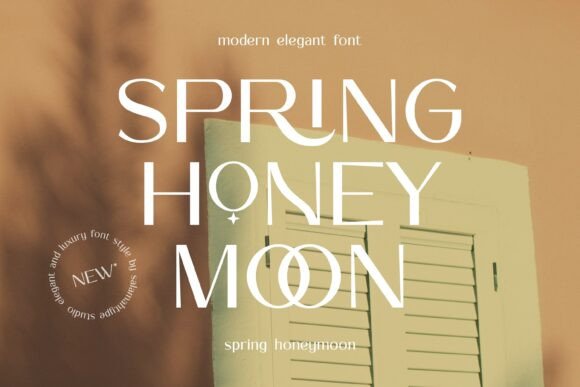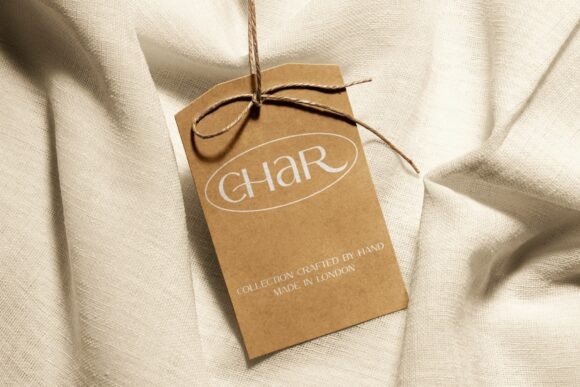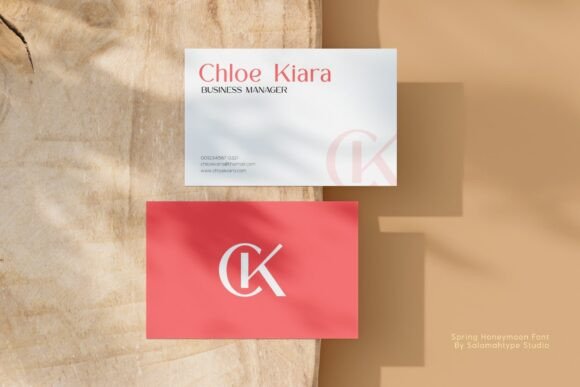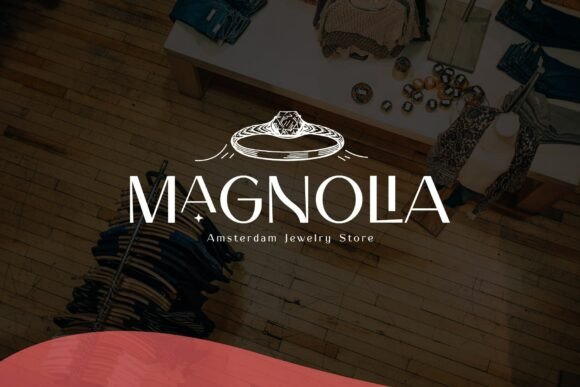
Spring Honeymoon Font: Elegant Wedding Typography & Logo Design
About the Spring Honeymoon Font
Explore the possibilities with Spring Honeymoon Font, a font that offers both beauty and functionality. Spring Honeymoon is a stylish, modern font with elegant uppercase letters featuring lots of alternates and ligatures, perfect for designing unique logos and beautiful wedding names. The lowercase is clean and easy to read, making it great for paragraphs. Whether you’re working on wedding invites, branding, or any creative project, this font brings a perfect mix of class and readability.
Spring Honeymoon Font Usage Examples
Spring Honeymoon Font Example